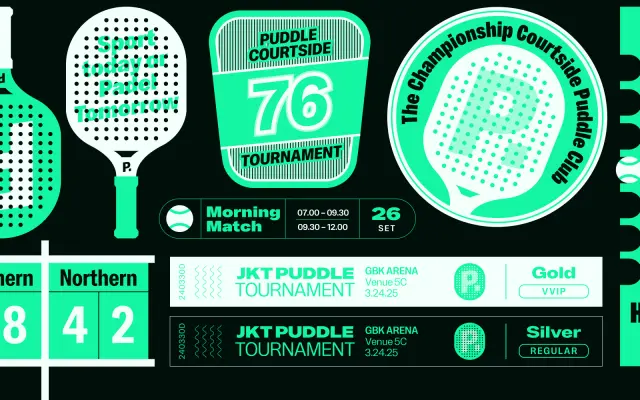
Makro
Tokotype · Gumpita Rahayu, Faza Mufti
A multi-width display sans with flared terminals and seven weights, available as a variable font with weight and width axes.
Makro spans Condensed, Normal and Extended widths across seven weights from Light to Black, with full italic coverage and variable font versions for both upright and italic styles. Its character comes from the contrast between geometric structure and organic, flared terminals, giving it a lively presence suited to headlines, titles and large-format graphics. Version 4.0 introduced variable weight and width axes, making the family adaptable across a wide range of display applications.
A sans-serif with flared terminals and strong contrast between structured letterforms and organic details, designed primarily for display use across multiple widths and weights.